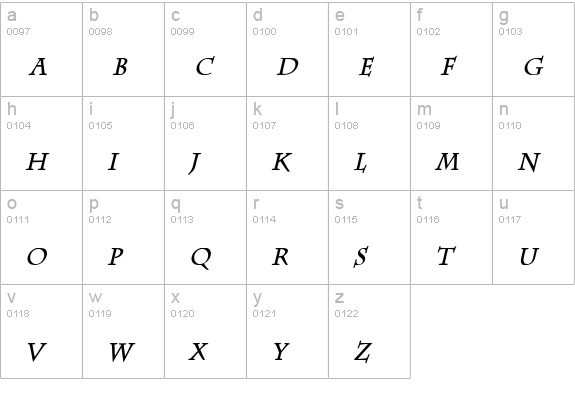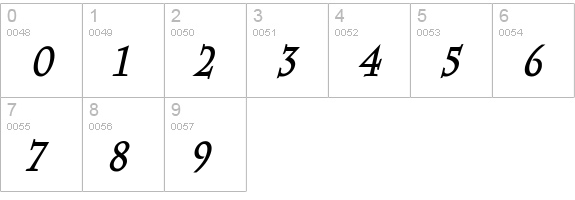
Chaz Condensed Bold Italic Font Details
Chaz Condensed Bold Italic is a strong, high-contrast, condensed-width, italic variant in the Chaz typeface family \xE2\x80\x94 well suited to headlines, attention-grabbing titles, and strong calls-to-action.
The Chaz Condensed Bold Italic font is a sleek and modern typeface that exudes confidence and sophistication. Its bold and italic design adds a touch of flair to any project, making it perfect for headlines, logos, and other eye-catching designs. The condensed style of the font allows for maximum impact in a minimal amount of space, making it ideal for projects that require a strong visual presence. Best of all, the Chaz Condensed Bold Italic font is available for free download at FontsMarket.com. Whether you're a designer looking to add a bold touch to your work or a business owner in need of a striking brand identity, this font is sure to impress. Don't miss out on the opportunity to enhance your projects with this stylish and versatile typeface - download it for free today!